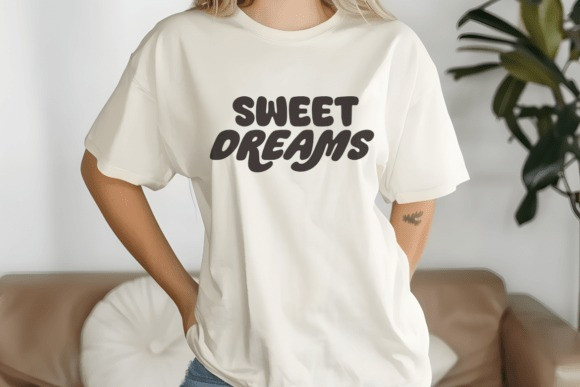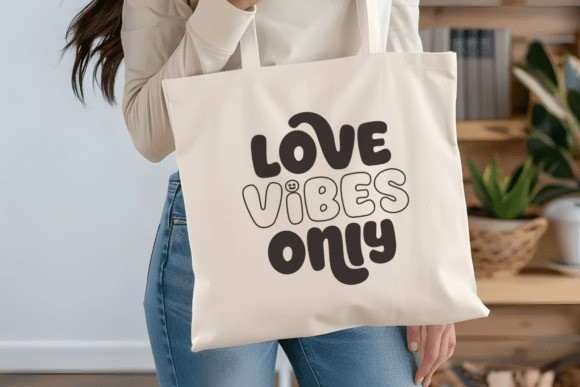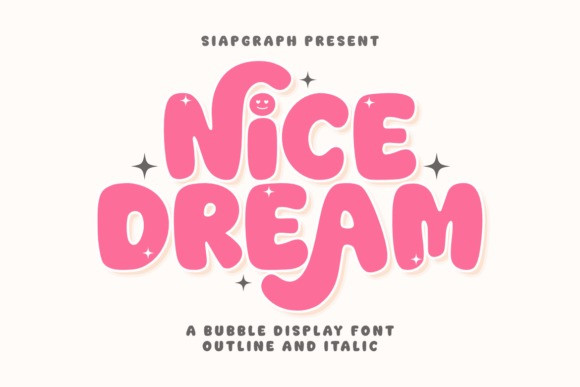
Nice Dream Font
Nice Dream Font is a premium “bubble” display font designed to make your projects shine.Featuring ultra-rounded forms and a friendly, pillowy silhouette, this font is the definition of “kawaii” aesthetic. The playful “i” topped with a smiley face and the sparkling accents make it perfect for candy packaging, toy branding, and vibrant social media graphics.
Its thick, approachable strokes create a sense of comfort and happiness, making it an excellent fit for youth-centric brands, dessert shops, or any project that aims to spread positivity. Dream big and design bold with this delightful typeface.